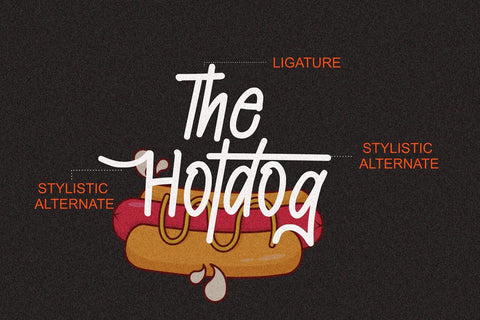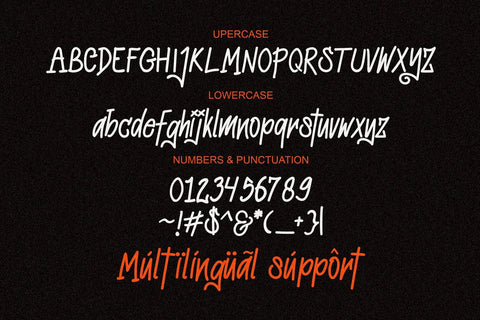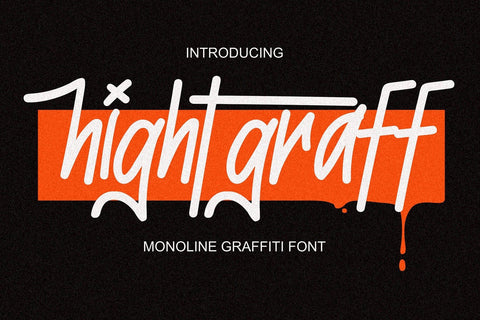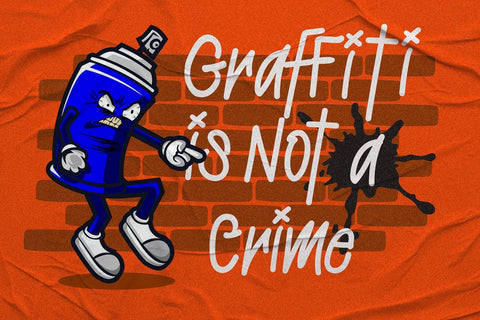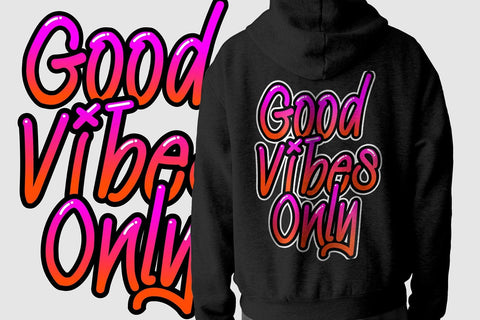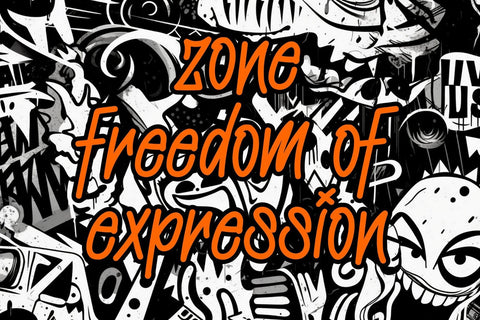
Hightgraff - Monoline Font
"Hightgraff" is a captivating monoline graffiti font that seamlessly combines the raw energy of graffiti with the fluidity of natural handwriting. With its monoline style, this font maintains consistent stroke width throughout, providing a sleek and urban aesthetic. The natural handwriting elements add a touch of authenticity and dynamism to the typography, evoking the gritty essence of street art. Perfect for projects that require an edgy and expressive typographic style, "Hightgraff" brings a raw urban vibe to any design, making it ideal for posters, branding, and streetwear.
- Graffiti Characters looks